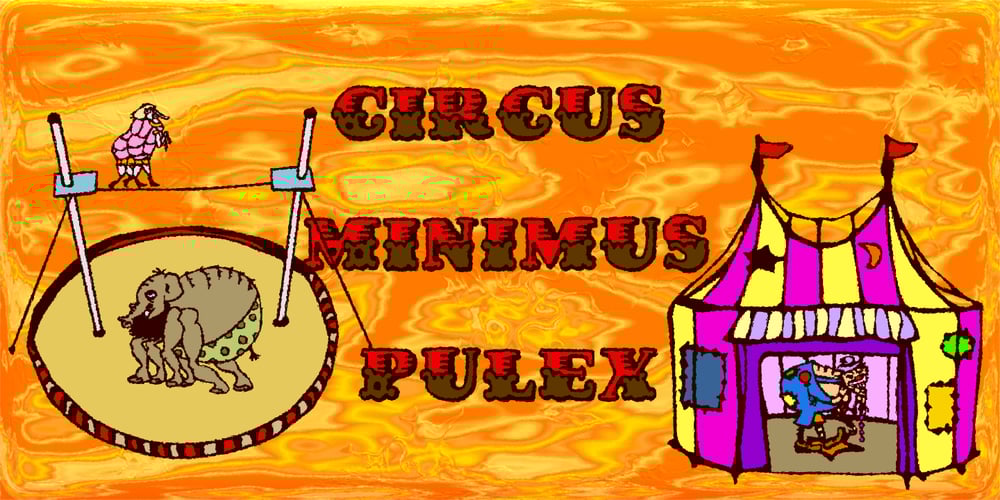
Circus Minimus Pulex Font Family was designed by Heikki Morgan Hämäläinen and published by Morganismi. Circus Minimus Pulex contains 2 styles and family package options. Circus Minimus Pulex typeface honours the memory of gone flea circus veterans. The icons present the little artists and their equipment to the great public.